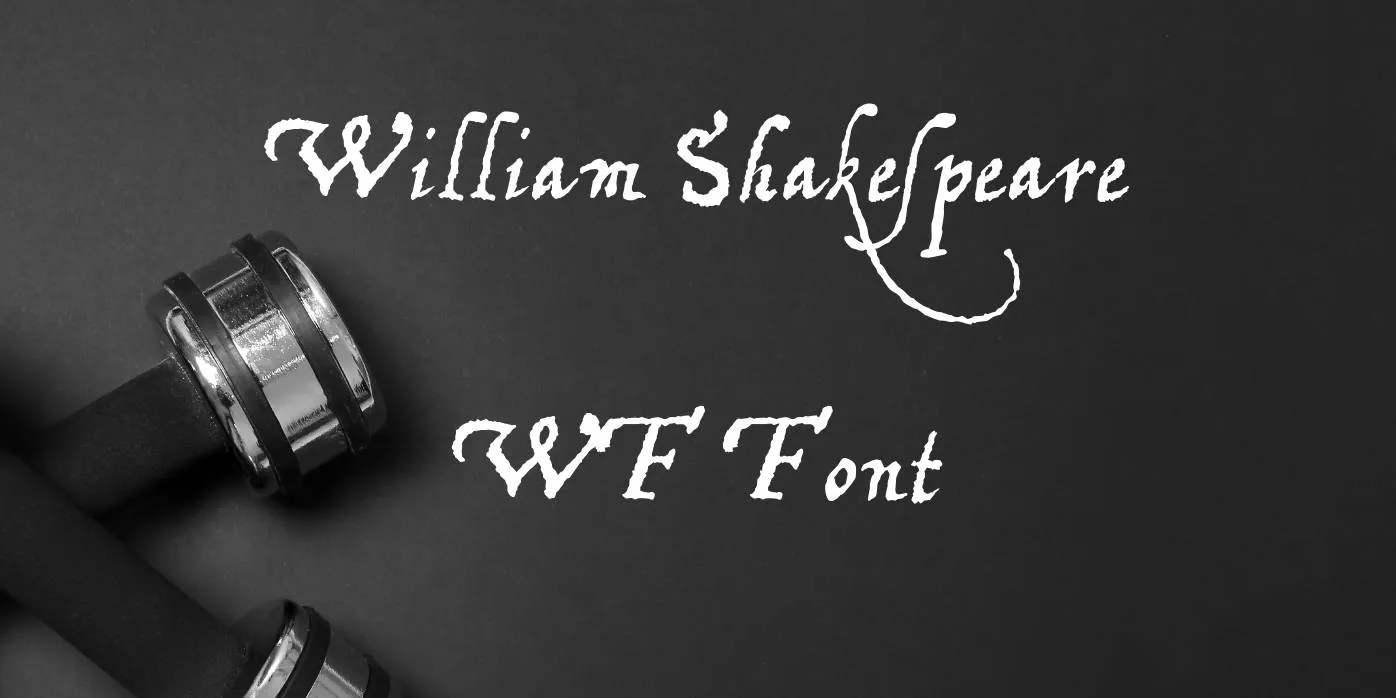
William Shakespeare WF Font
William Shakespeare WF font was developed by Westford School in Massachusetts. This classy typeface belongs to the calligraphy font family. This font is named after the famous English playwright and poet, William Shakespeare. This typeface is used for different software like Photoshop, Canva, and CorelDRAW.
This font is a great typeface designed to be used for body text. It is available in two weights, regular and bold. This classic typeface has keen and Bold features. It is best for SVG.
Its alternative font is Midnight Font which works in a similar manner. This awesome font has a great number of special characters. To access the special characters, one must use the “Character Map” feature in Microsoft Word or a similar program. The best way to use this font is to set the text in all caps.
This fascinating typeface has available many high strokes. Its generator tool is best for different designs.